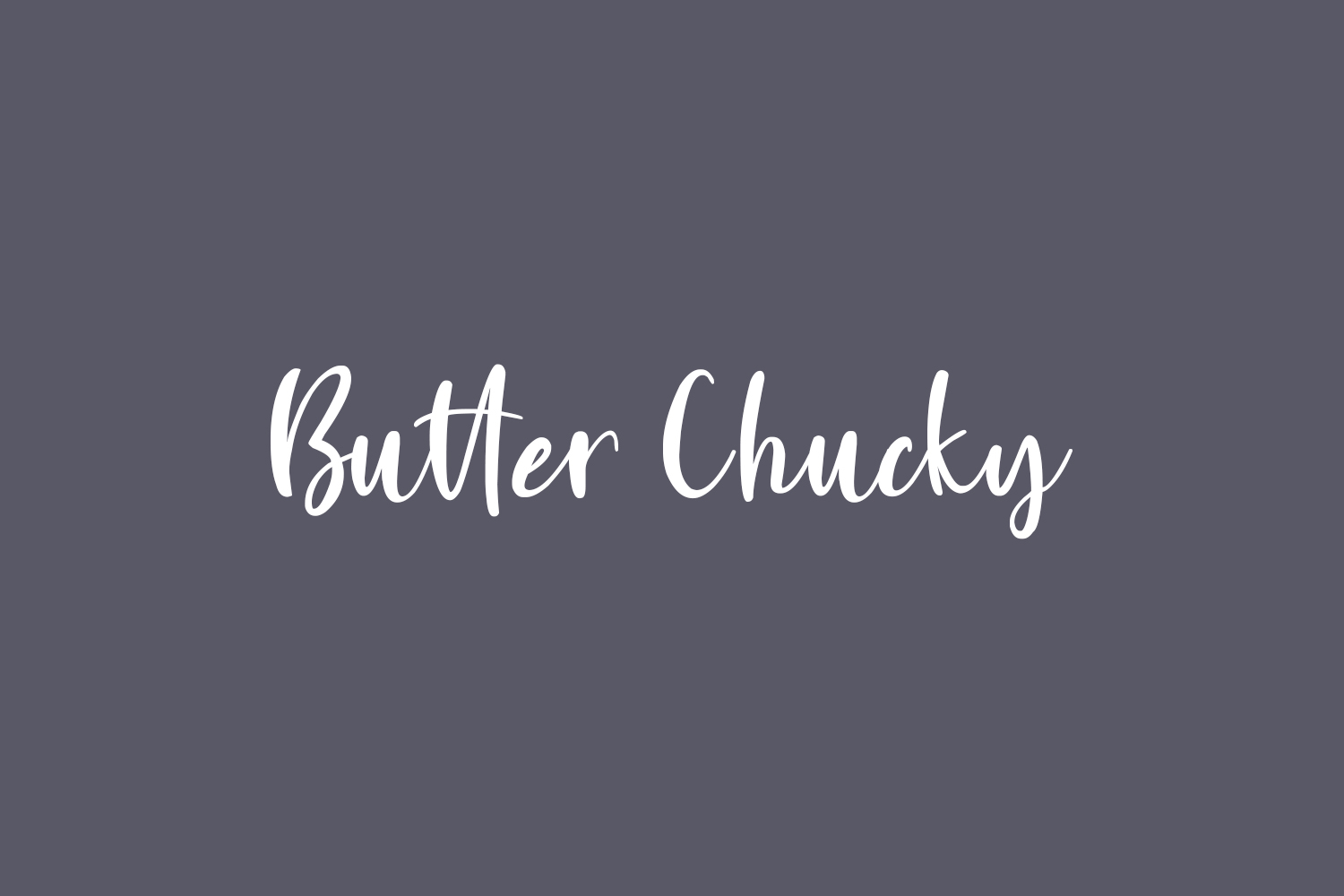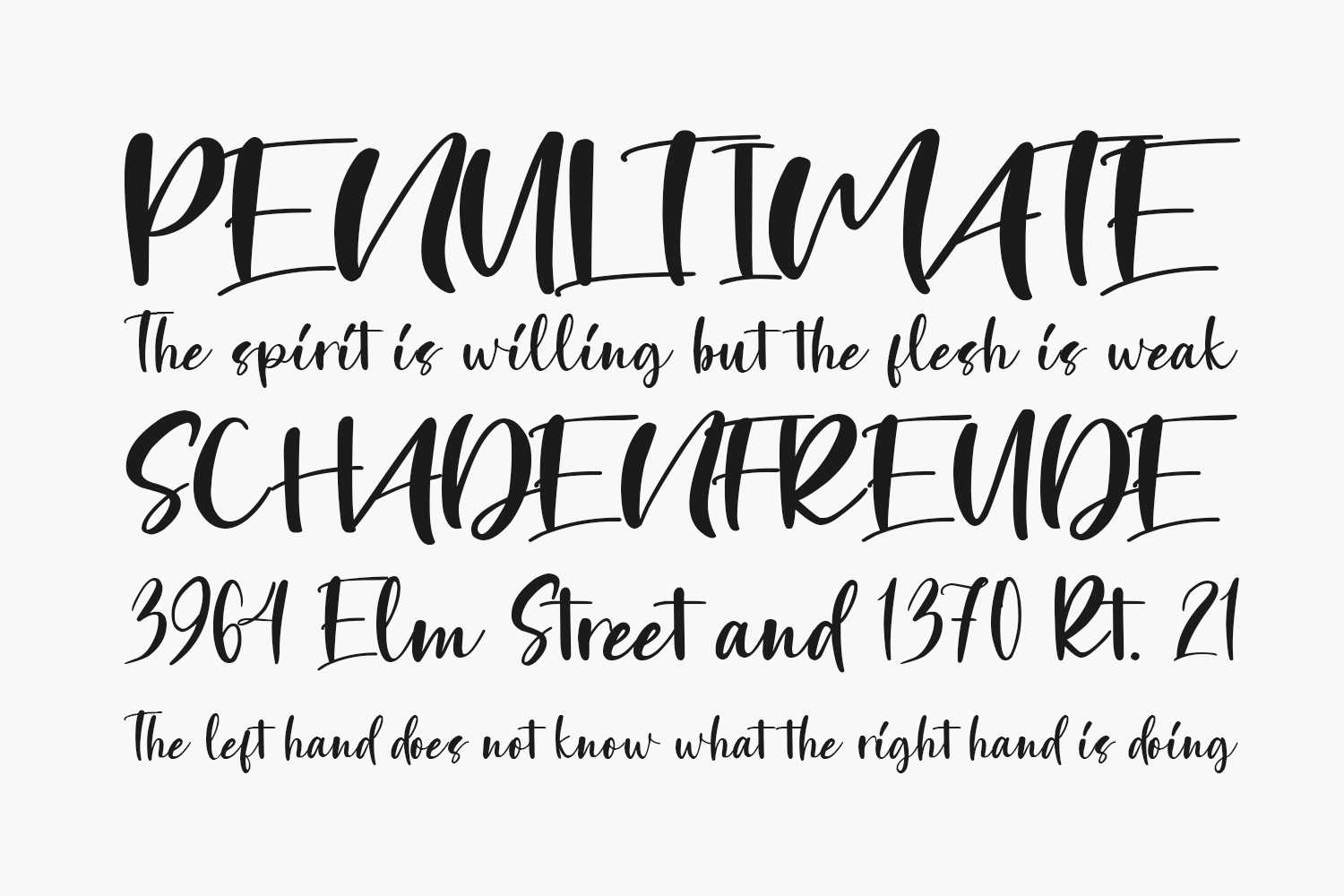
Butter Chucky Free Font is a delicate, elegant handwritten font. It has well balanced characters and as a result, it matches a wide pool of designs. Add it to your most creative ideas and notice how it makes them come alive. Butter Chucky Free Font was designed by Zamjump and is free for personal use only. Please purchase the full version for commercial use.